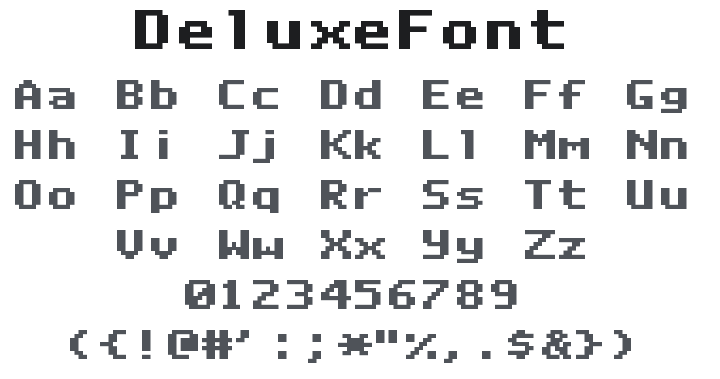
DeluxeFont Font
by CodeMan38
DeluxeFont Font
About DeluxeFont
Ever use Electronic Arts' DeluxePaint II for Amiga or MS-DOS? If so, you probably recognize this somewhat distinctive bitmap font from its menus and dialogs. The capital Y, among certain other characters, is quite unusually shaped.